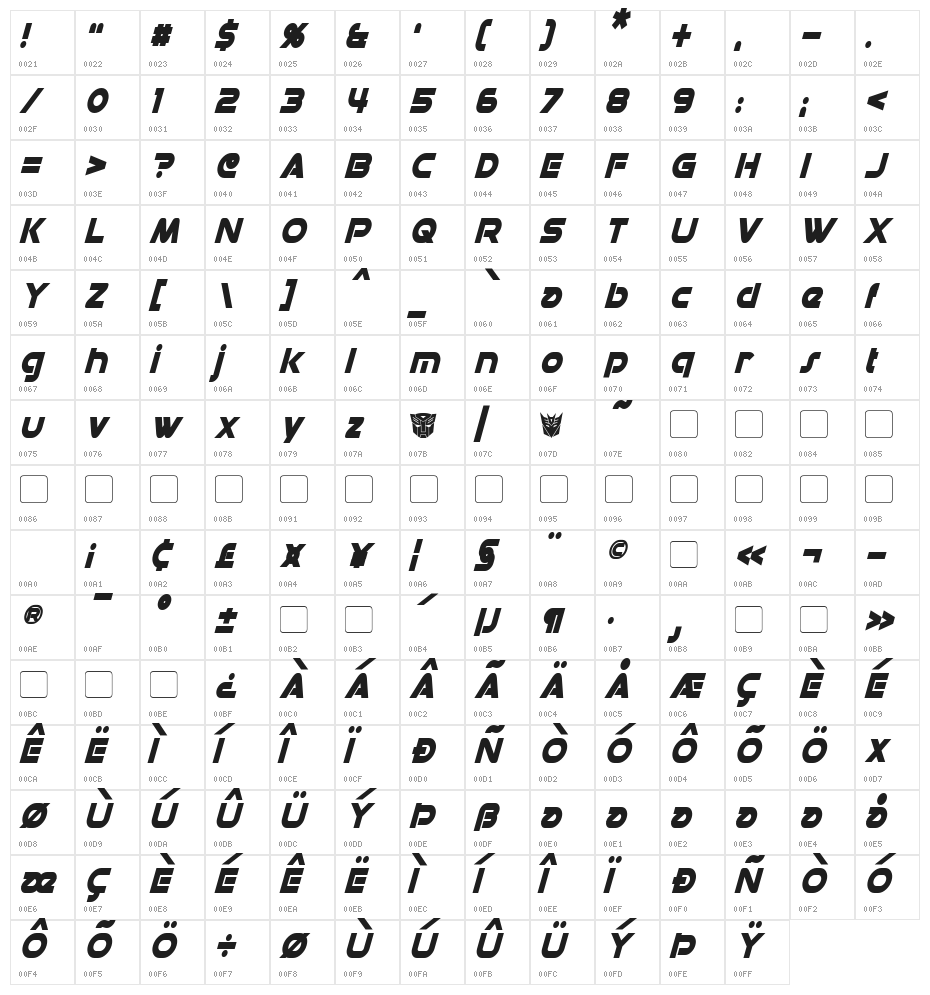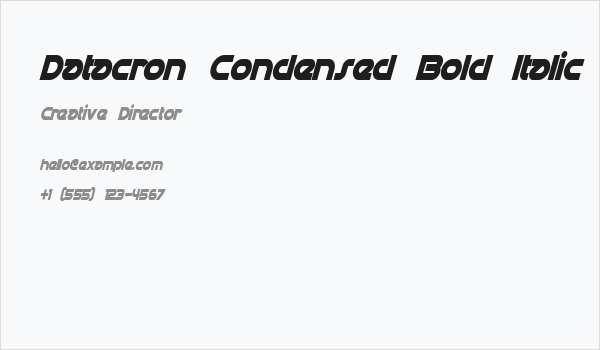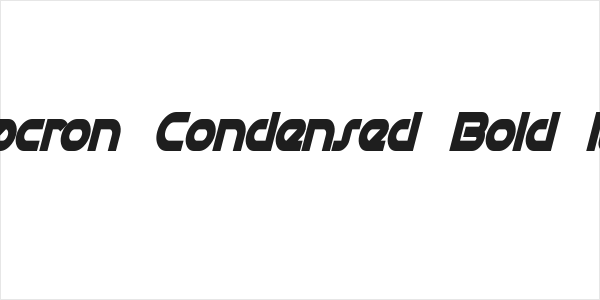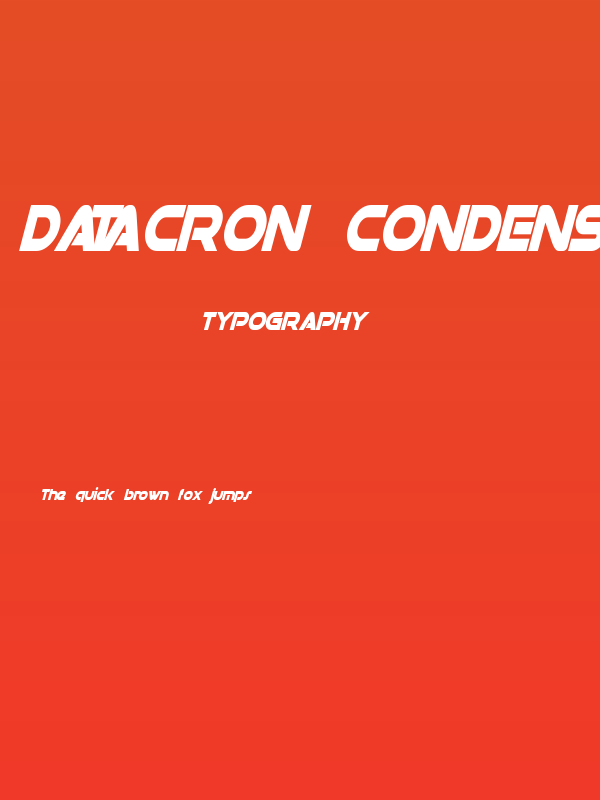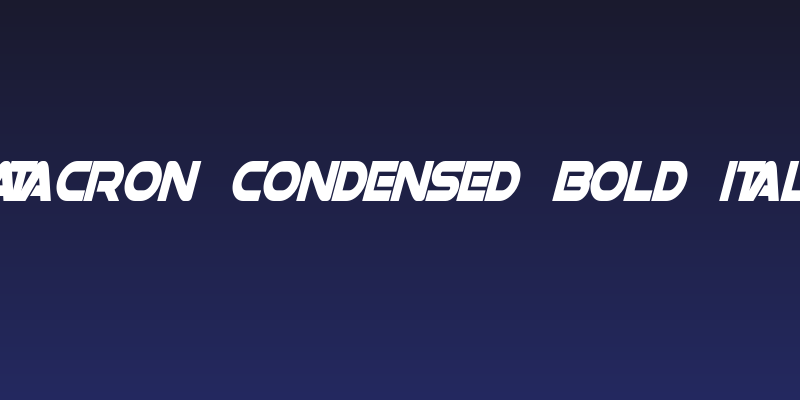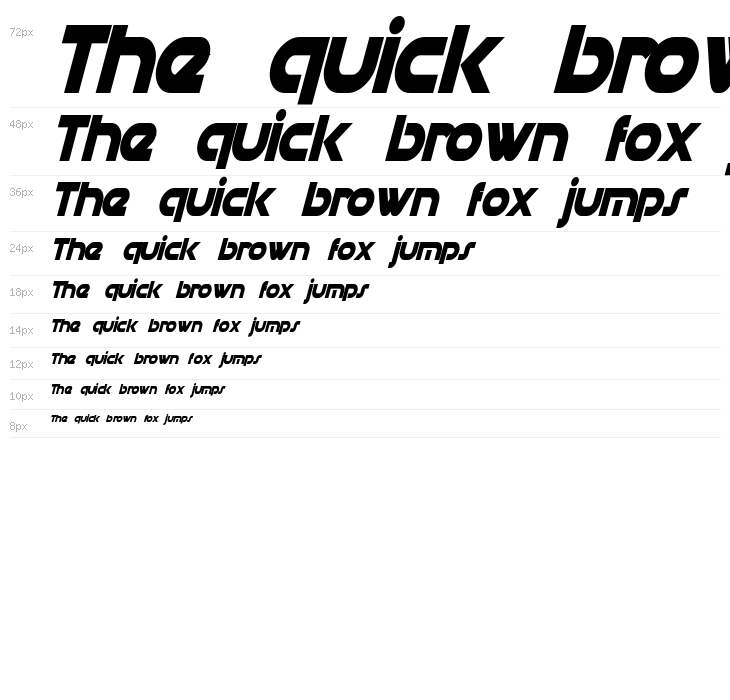
Datacron Condensed Bold Italic Font
Datacron Condensed Bold Italic Description
This font features a bold and italicized style with a condensed width, creating a dynamic and modern appearance. The characters are sharply angled, giving a futuristic and sleek look. The uppercase and lowercase letters maintain a consistent style, with a strong emphasis on geometric shapes and clean lines. The numerals and special characters are designed to match the overall aesthetic, ensuring uniformity across all text elements. This font's boldness and italic slant make it stand out, ideal for projects that require a strong visual impact.
| Proposed Projects | Ideal for technology branding, futuristic posters, video game titles, and dynamic advertising campaigns. |